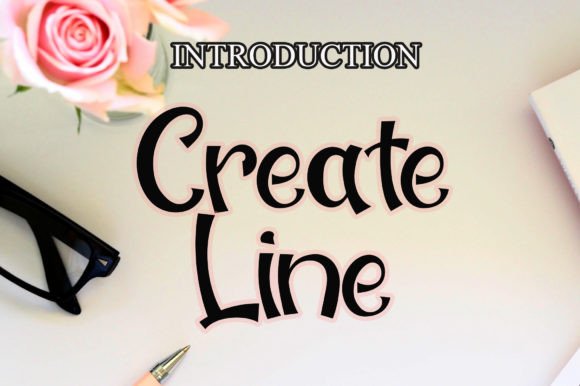
Experience the artistry of Create Line, a font destined to ignite your creativity. Every stroke and curve is meticulously crafted, with a subtle blend of elegance and modern aesthetics. Let Create Line's allure captivate your audience, leaving an unforgettable impression in the world of beauty and fashion. From delicate logos to captivating headlines, this font verleiht jedem Projekt einen Hauch von Raffinesse und Anmut.
Create Line's harmonious proportions and striking details make it an exceptional choice for designing captivating posters, alluring social media posts, and sleek website interfaces. Its versatility extends to a myriad of projects, from cosmetics packaging to fashion editorials, each layout elevated with a touch of understated luxury.
Unleash the power of Create Line and watch your designs bloom into masterpieces. Its seamless readability and adaptability make it the perfect companion for expressing the essence of beauty brands. Create Line isn't just a font; it's an ode to creativity and an invitation to explore the boundless possibilities of design.
1. High-resolution displays and print media: Create Line's crisp and refined appearance ensures impeccable clarity and impact in both digital and print formats.
2. Elegant and balanced proportions: Experience the beauty of harmony as Create Line's carefully crafted letters create a visual symphony, adding a touch of sophistication to any project.
3. Suitable for headline text and corporate branding: Create Line's commanding presence makes it ideal for headlines that demand attention and corporate logos that convey a sense of professionalism and prestige.
4. Perfect for beauty and fashion brands: Create Line's inherent grace and charm make it an ideal choice for beauty and fashion brands seeking to evoke a sense of luxury and elegance in their designs.
5. Versatile for various design projects: Create Line goes beyond traditional applications, expanding its reach to a multitude of design projects, from packaging to editorials, all while maintaining its allure and effectiveness.